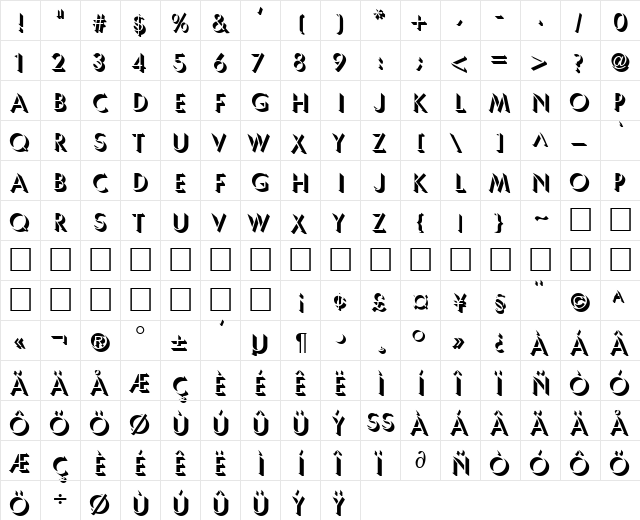
Usambara DB Regular
Design Context for Usambara DB Typeface
Usambara DB is a composed and adaptable typeface that performs quietly and consistently across a wide range of design contexts.